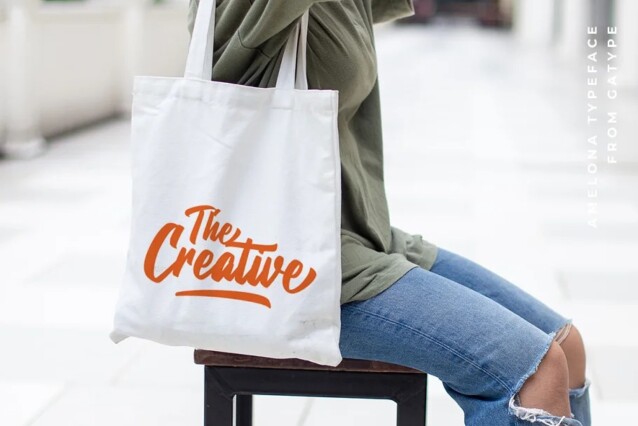
Amelona Font
Amelona Font – A clean handwriting font with consistent, bold neat strokes and casual touch. This font is a great family of brushes for all kinds of display uses from packaging to posters & logos to headlines. Amelona as a basic letterform is bold and clear and there are many alternatives for a more customized look. This typeface comes in uppercase, lowercase, punctuation, symbols & numbers, alternative style sets, binders, etc. Also supports multilingual and PUA encoded already.